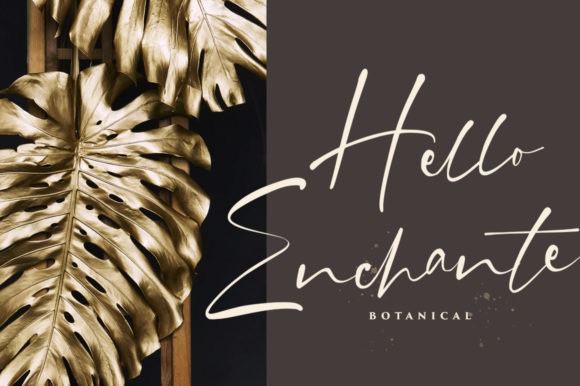
Wolfstar Script Font
Fonts – Wolfstar Brush Script is a hand-painted font and belongs to the family of modern scripts. This font has a grunge effect and is typical of natural brushes. has uppercase and lowercase elements, punctuation marks, and punctuation with character, making this font suitable for various design projects, such as branding, logos, clothing, t-shirts, product packaging, invitations, magazines, quotes, leaflets, posters, etc.